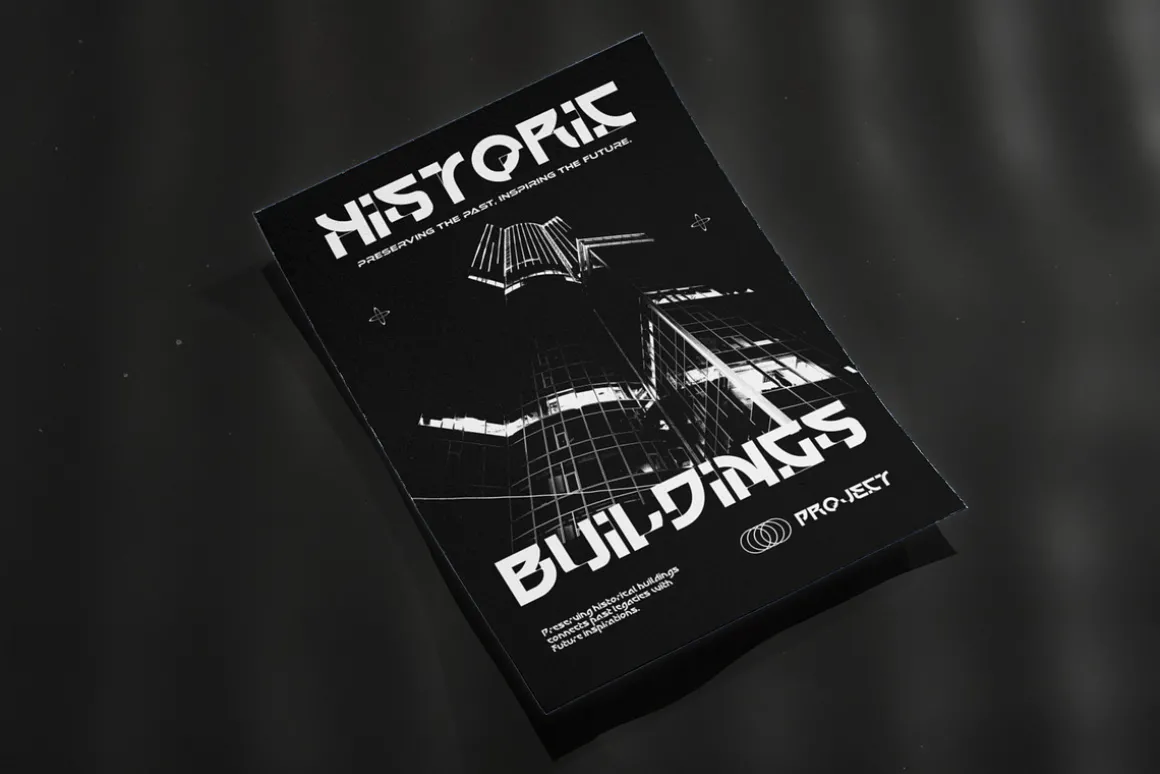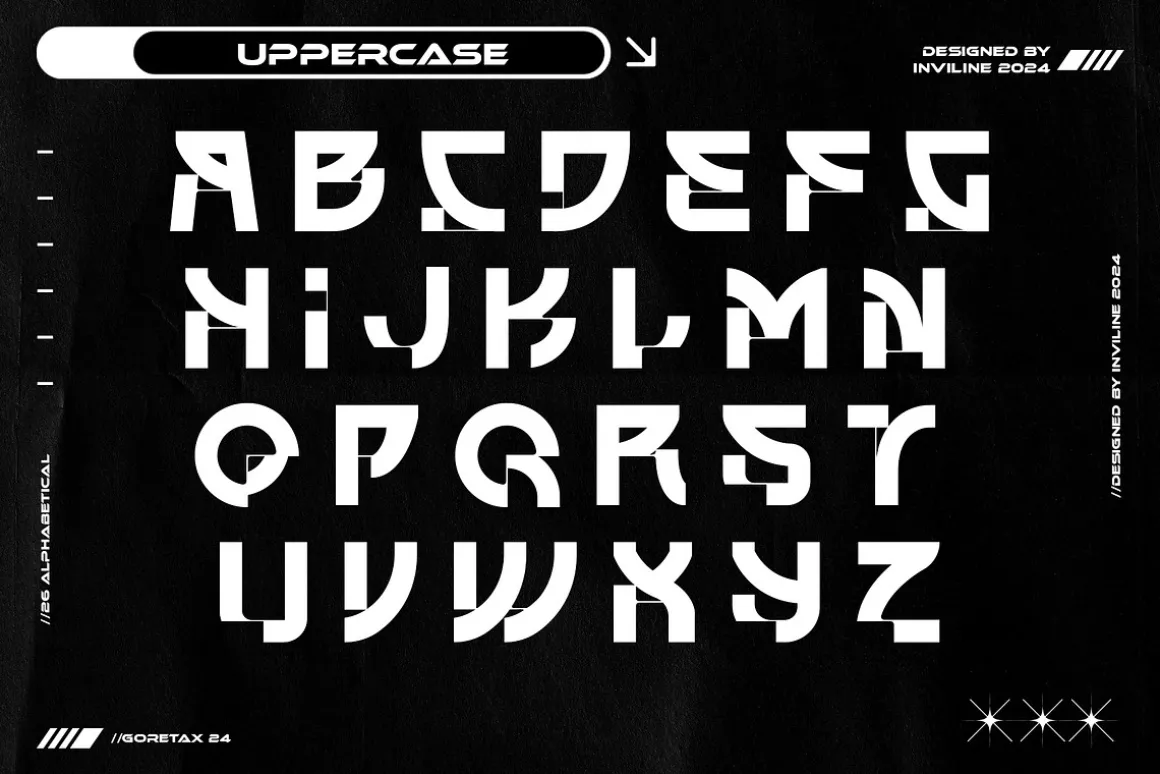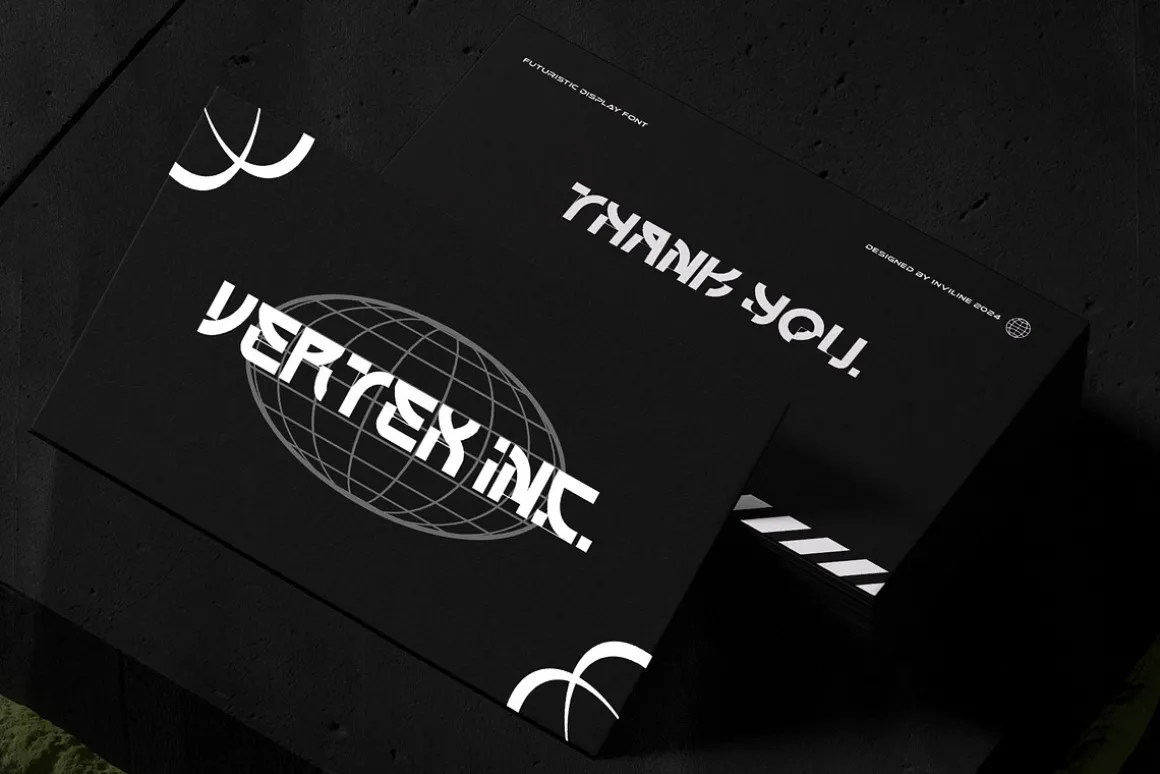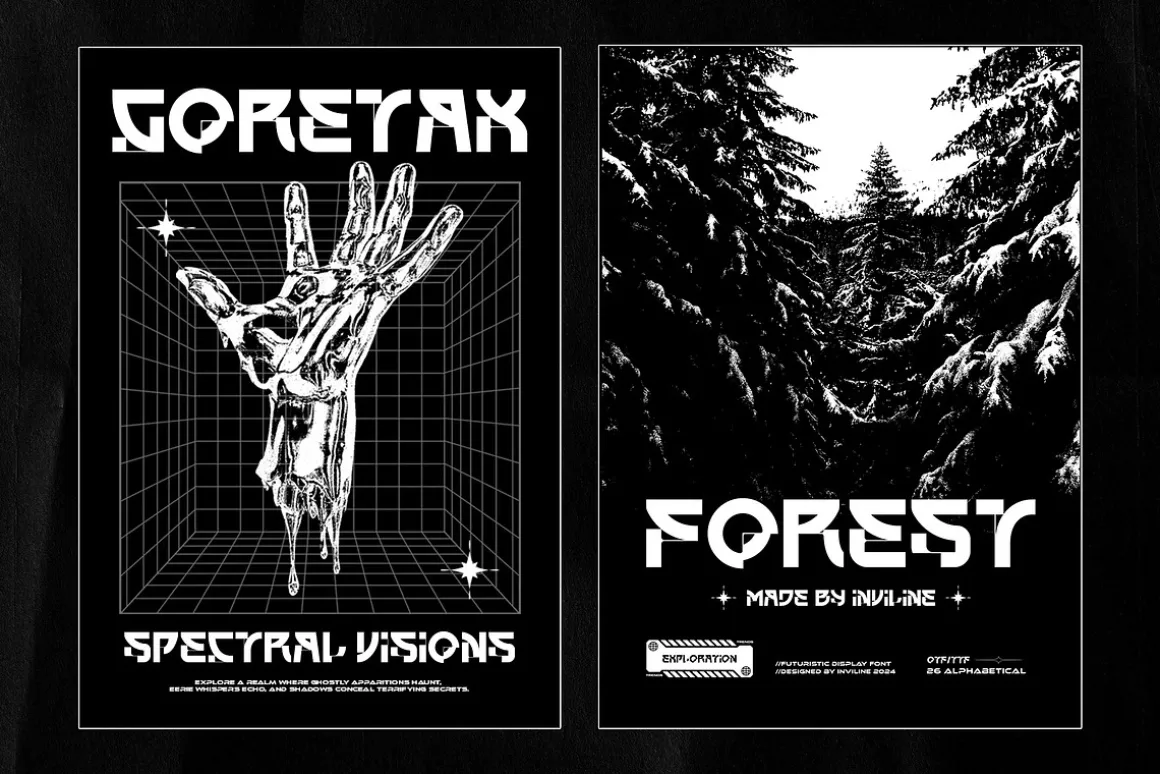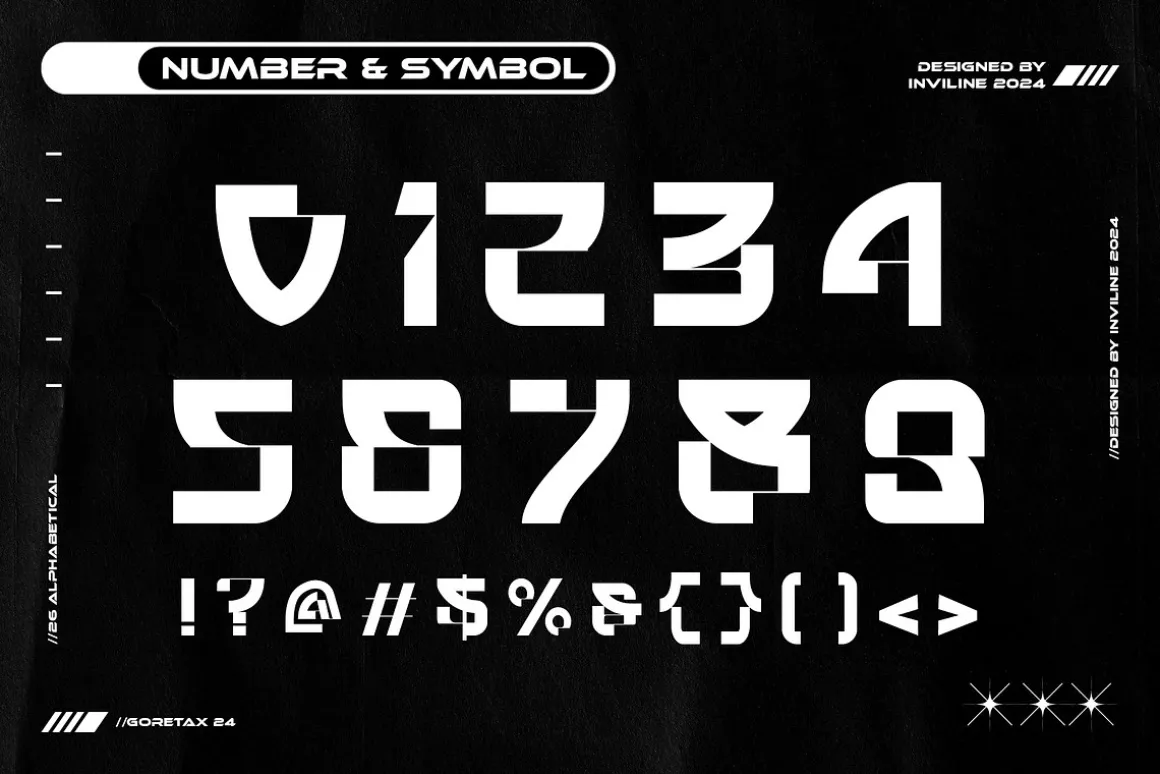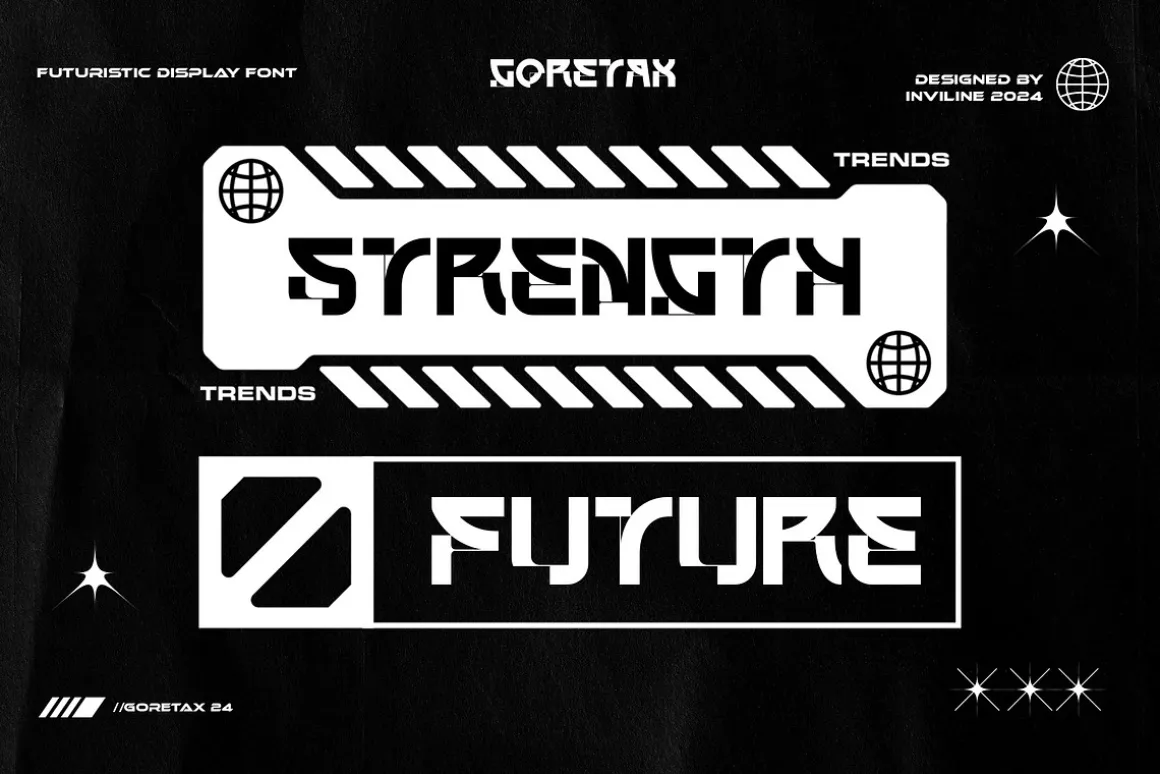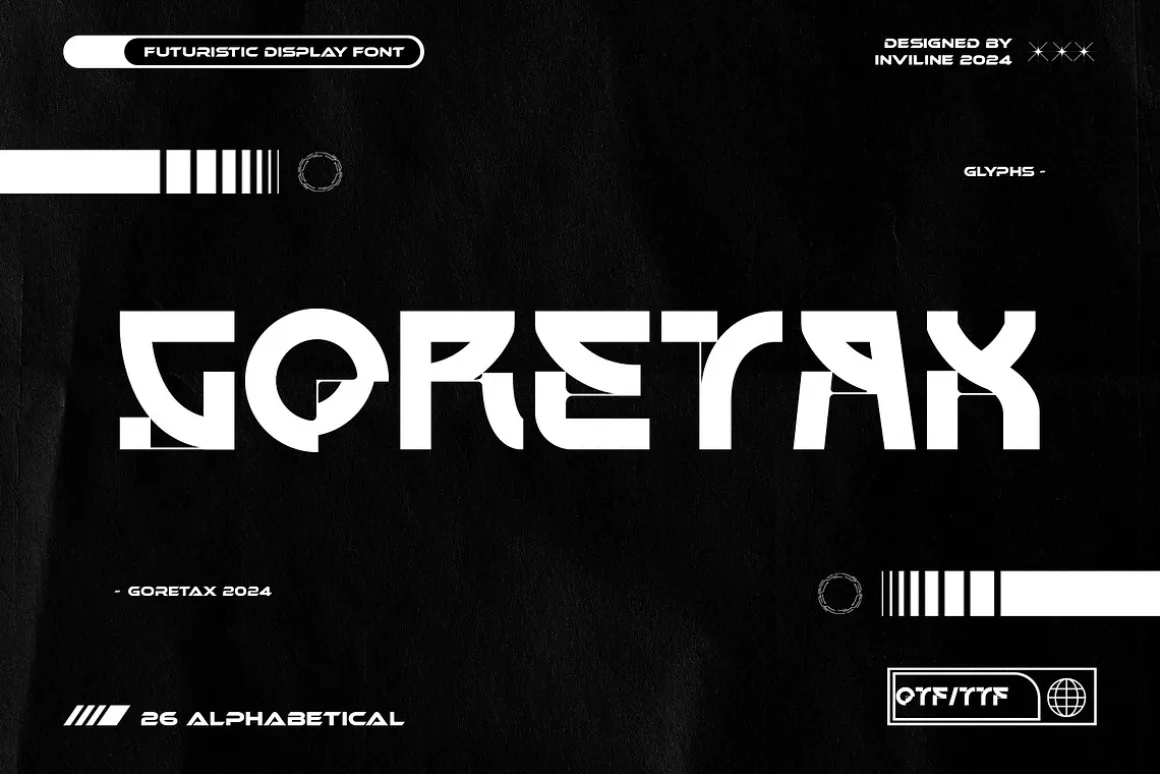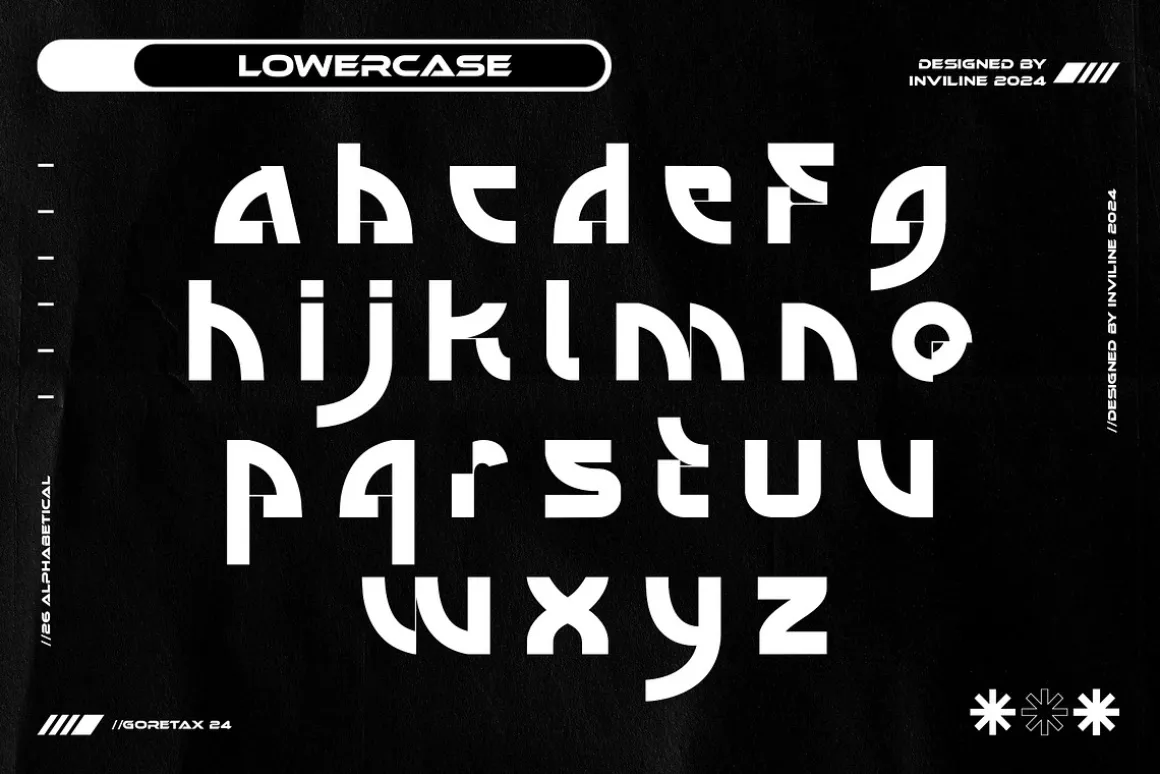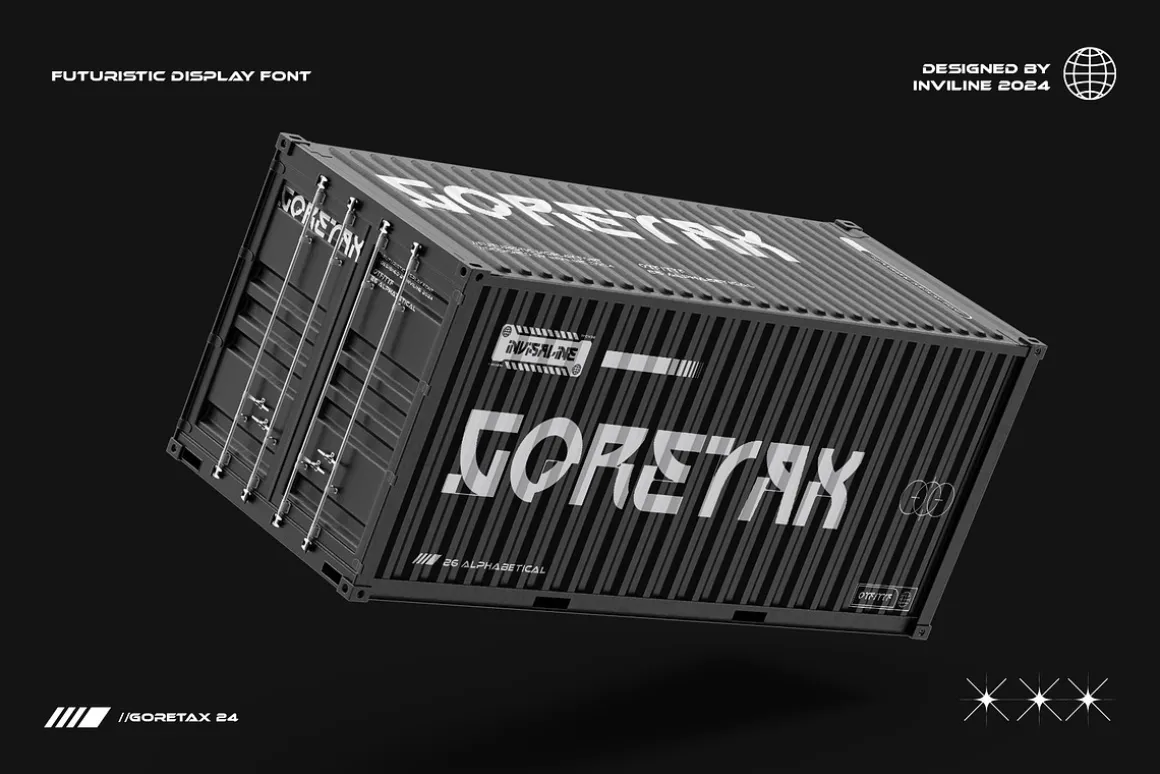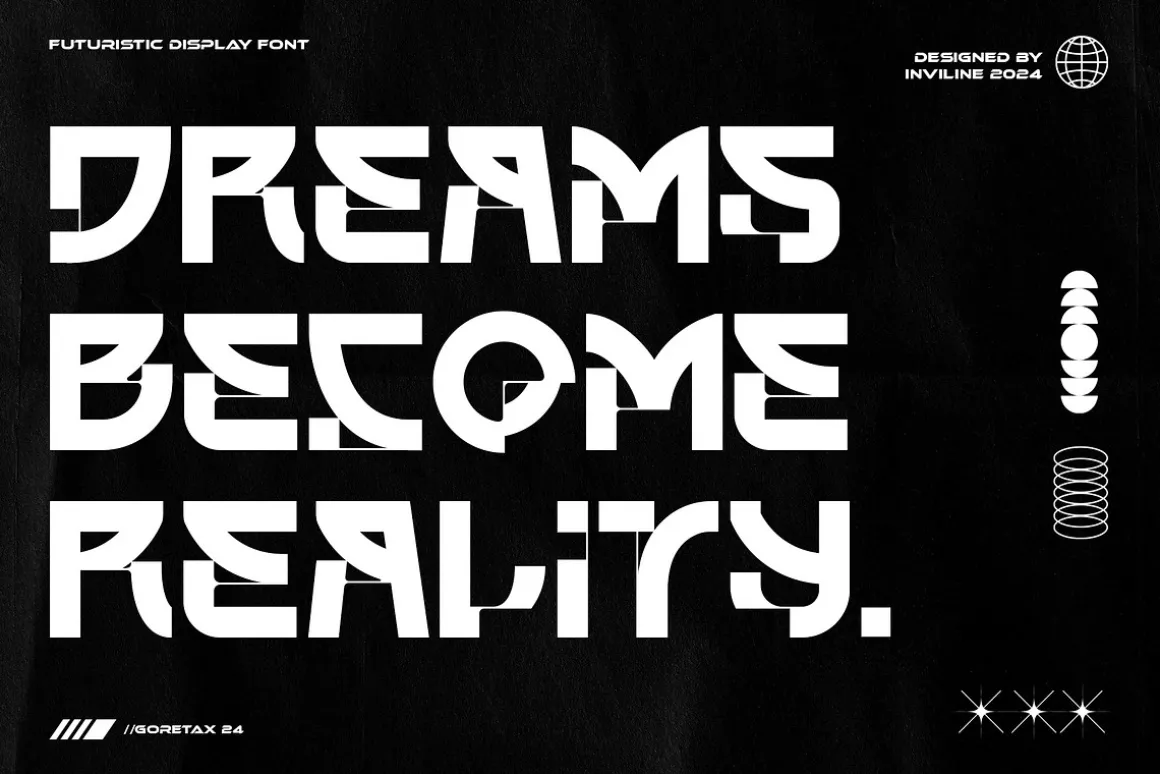
Goretax – Tech Display Font
Bring a touch of Tech-Futurism to your designs with this meticulously crafted font collection. Perfect for adding a Techwear vibes to your branding, packaging, logos, and more.
- Uppercase & Lowercase Characters: Fully designed for a complete typographic experience
- Numerals & Punctuation: All the numbers and punctuation marks you need for any design task
- High-Quality Design: Each font is crafted with attention to detail, ensuring a polished and professional look